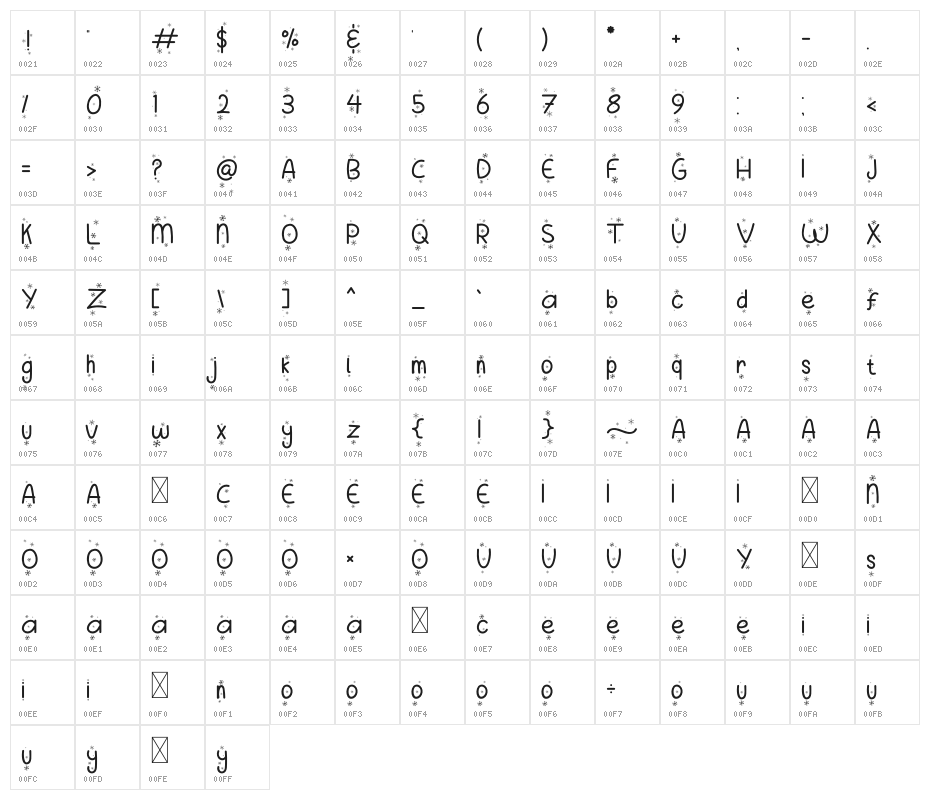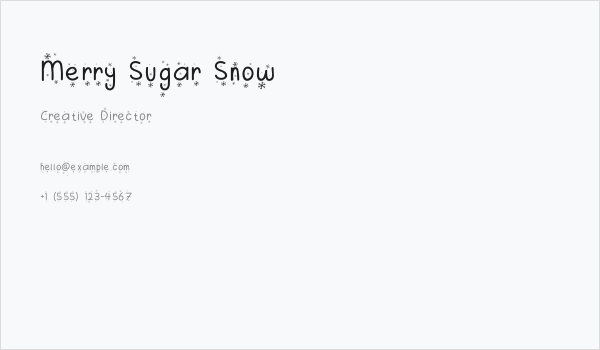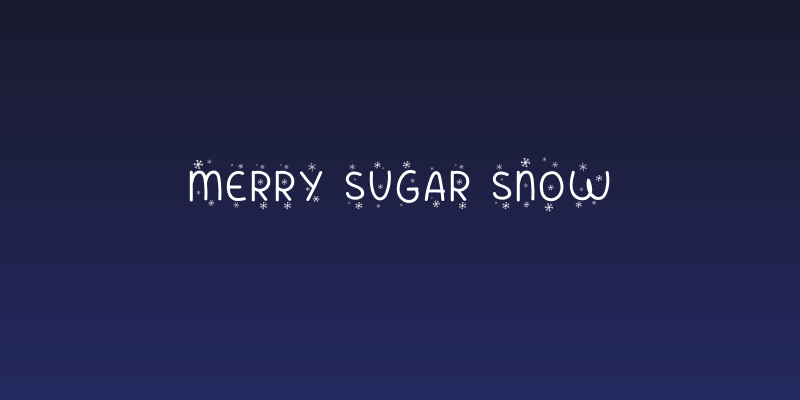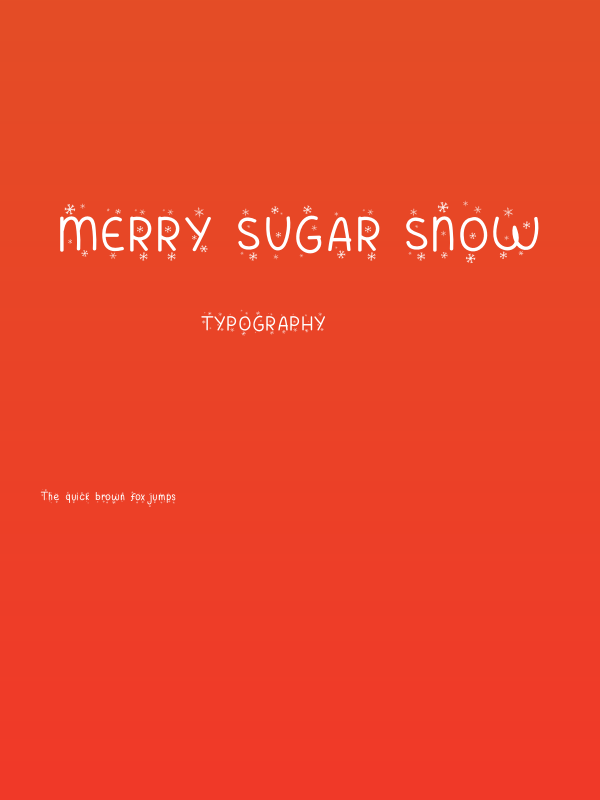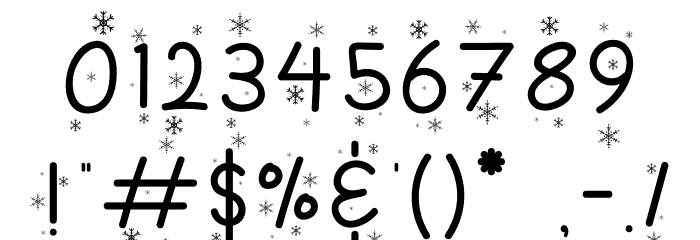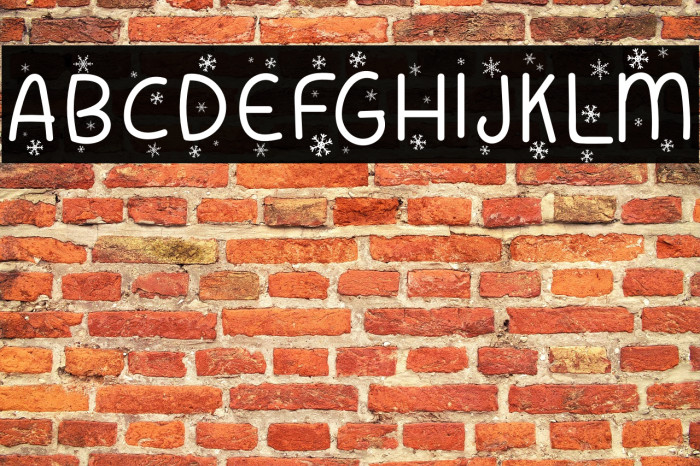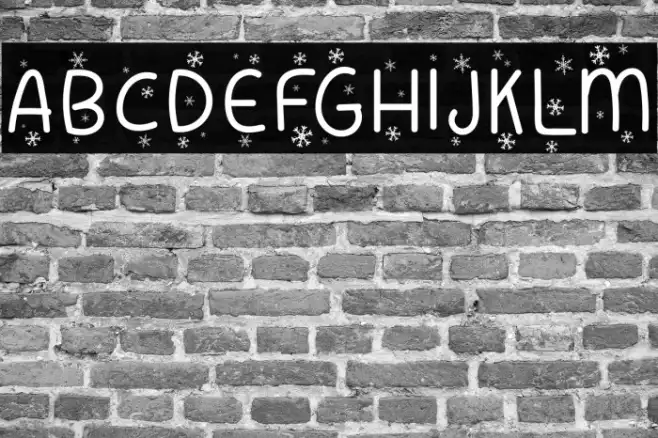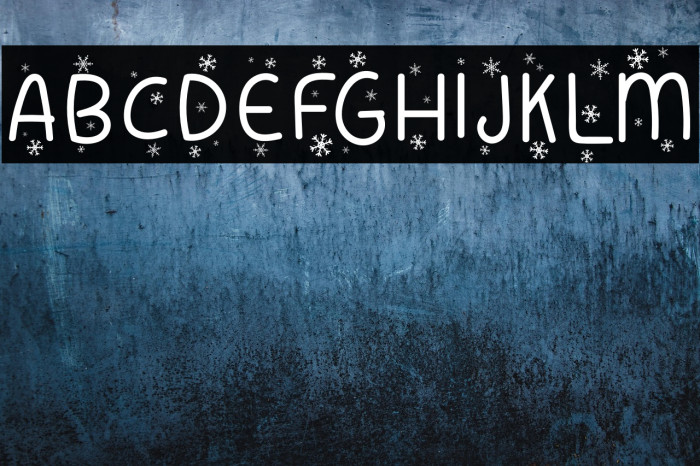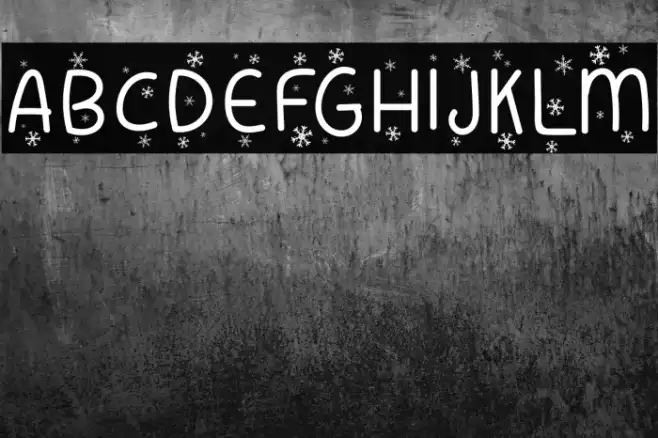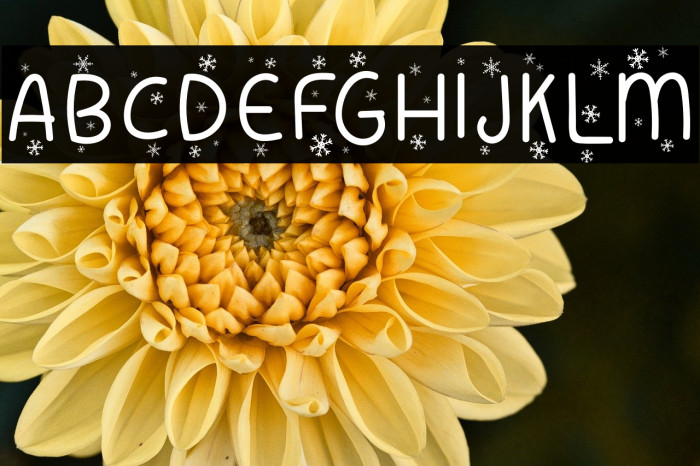
Merry Sugar Snow Font
Merry Sugar Snow Description
This whimsical font features playful, rounded characters adorned with snowflake accents, creating a festive and cheerful appearance. The letters are bold and slightly elongated, with a consistent stroke width that gives them a friendly and approachable feel. The snowflakes are integrated seamlessly, adding a decorative touch without overwhelming the readability of the text. The font maintains a uniform baseline, and the characters are evenly spaced, ensuring clarity and balance. Its unique style is perfect for capturing the essence of winter and holiday themes, making it ideal for seasonal projects.
| Proposed Projects | Ideal for holiday cards, festive banners, winter-themed invitations, and seasonal advertisements. |